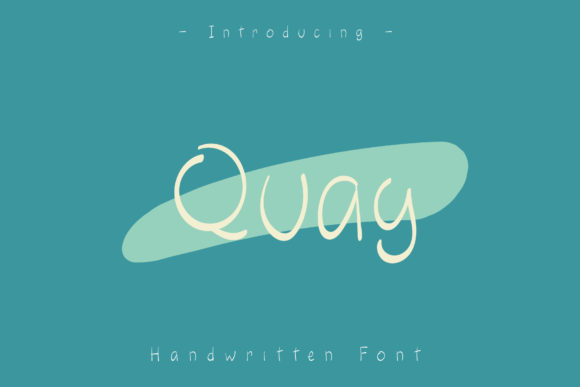
Get ready to revolutionize your creative expression with the captivating elegance of the handpicked "Quay Font" collection, a symphony of script lettering designed to infuse life into your digital masterpieces. Created by the visionary mind of Wanida Toffy, this enchanting font family is a masterpiece of artistry, drawing inspiration from the fluidity of ink on paper.
With its graceful, modern, and dancing baseline, the "Quay Font" collection is an ode to creativity, promising to transform your words into captivating works of art. Imagine your Instagram posts adorned with enchanting phrases, your logos exuding sophistication, or your DIY projects infused with a personal touch. The "Quay Font" collection possesses the magical ability to make your artistic vision come alive.
Whether you're a passionate calligrapher seeking unique scripts for your next project, a business owner looking to make a distinctive mark in the world, or a graphic designer striving to create unforgettable designs, the "Quay Font" collection is your ultimate companion. Experience the joy of crafting logos that become instant classics, and witness your designs reaching new heights of excellence.
Unleash your imagination and let the "Quay Font" collection be your trusty guide, leading you to creative triumphs and leaving a lasting impression on all who behold your masterpieces. Join the ranks of satisfied users who have flocked to this enchanting font family, experiencing firsthand its ability to transform the ordinary into extraordinary.